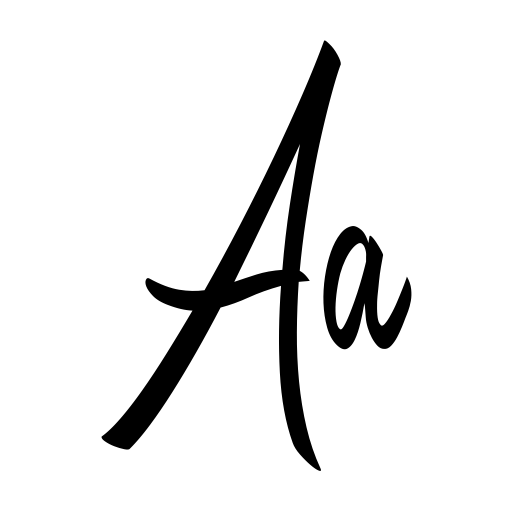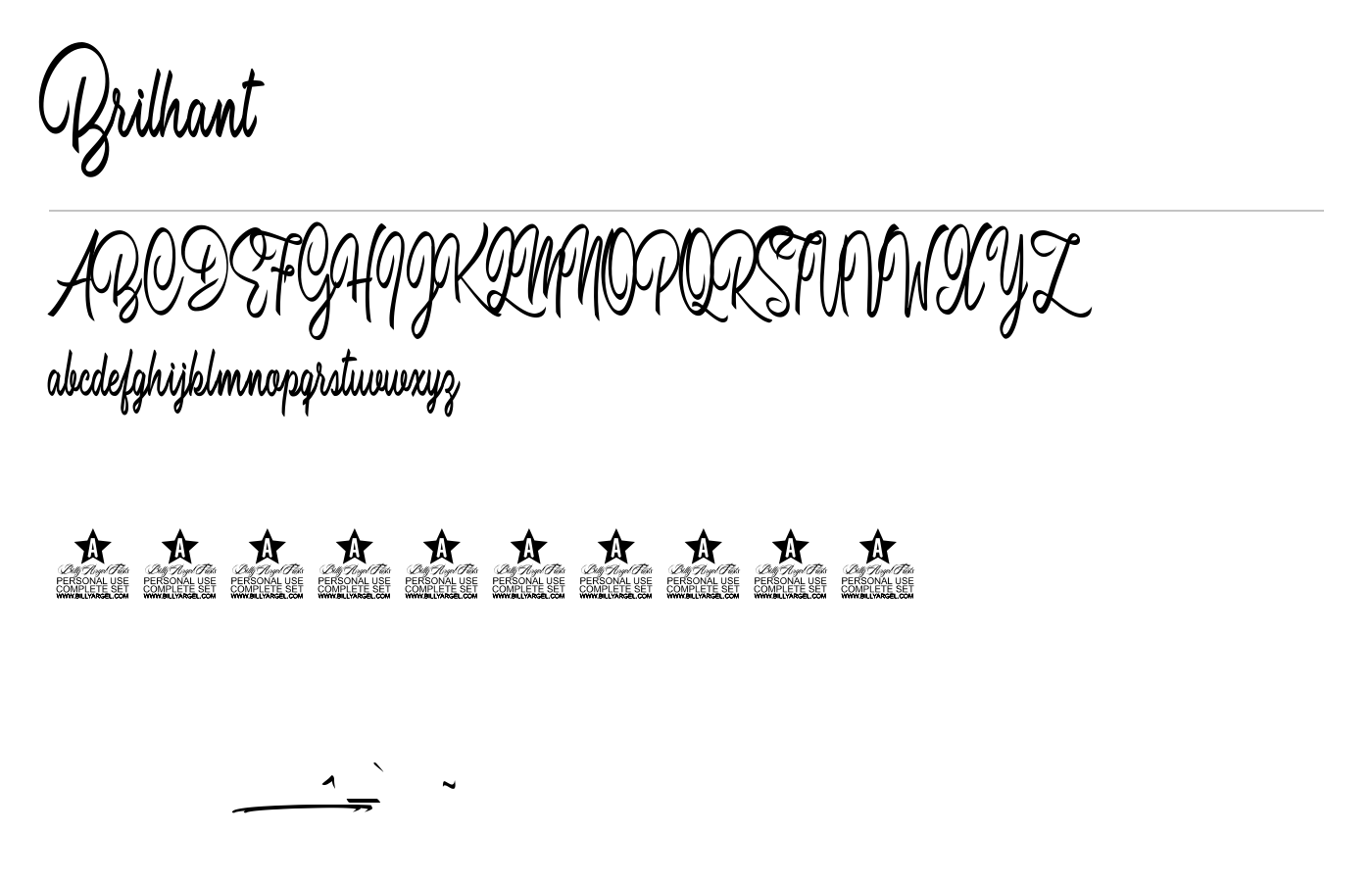
Brilhant is a charming script font with a lively, hand-drawn feel characterized by its elegant, flowing strokes and consistent, medium weight. It combines playful cursive forms with smooth, rounded lines that create an inviting and personal touch, making it ideal for creative branding, invitations, and feminine or artistic designs. Its stylish yet readable letterforms work best in headlines and logos where a warm, approachable personality is desired.
Brilhant Font
About Brilhant Font